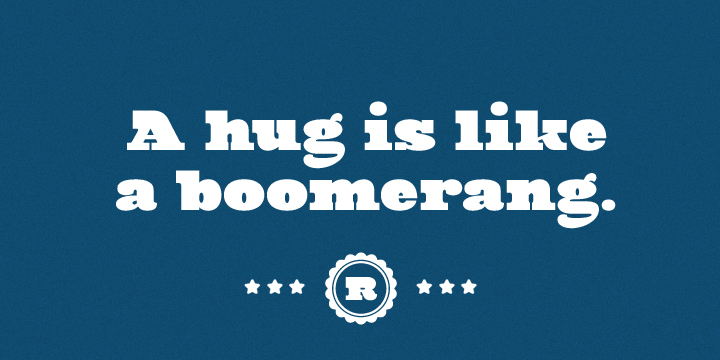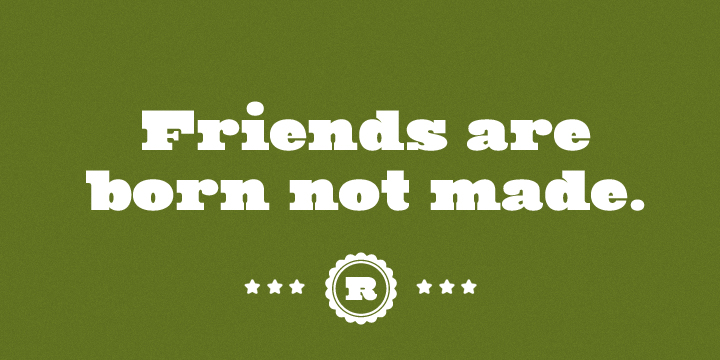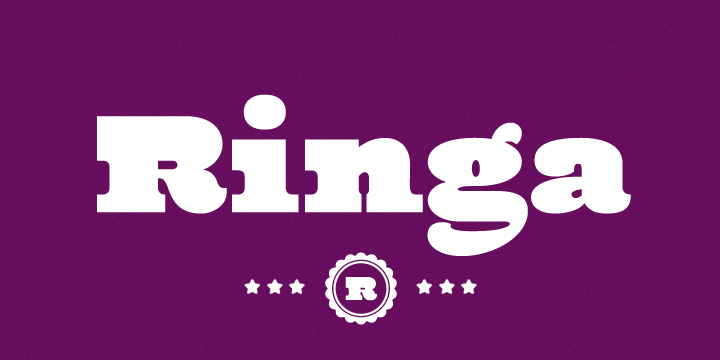
HomeFont BrosHistoricalRinga HistoricalSerif Ringa FacebookXPinterestWhatsApp 1 of 3 About Ringa Ringa is extra bold slab serif typeface with a fun and sympathetic feel.  DOWNLOAD NOW People also explored Famous Brush – Textured Brush Font Adelisa Font The Fallen Leaf Font Paradise Font Candra Winata Font Hamilton Font Sansa Dior Font Mellow Bliss Font We Go Together Font 294 0 TagsRingaRinga Font Previous articleLigurinoNext articleYWFT Owen LEAVE A REPLY Cancel reply Comment: Please enter your comment! Name:* Please enter your name here Email:* You have entered an incorrect email address! Please enter your email address here Website: Save my name, email, and website in this browser for the next time I comment. Personal Use Free Sathscha Personal Use Free Read more about this font Ciggs Personal Use Free Read more about this font Milda Personal Use Free Read more about this font Cline Personal Use Free Read more about this font BLOG Elegant Wedding Invitation Fonts – Handwritten & Script Fonts Elegant Wedding Invitation Fonts Your wedding day is one of the most important moments of your life, and every detail matters—including your invitation design. Our... Free Fonts Risk: Why Free Fonts Can Be Dangerous for Designers How to Cut Any Font on Cricut: Convert a Font to SVG (Free) The 10 Best Handwriting Fonts to Add Personality to Your Designs